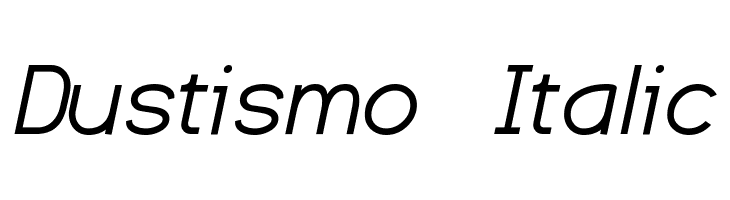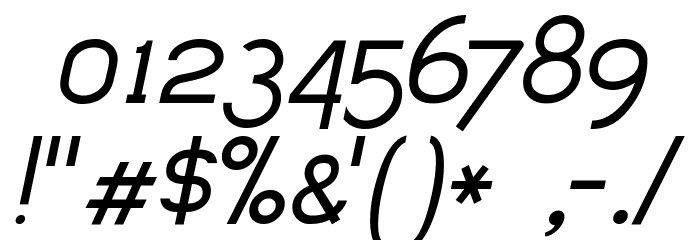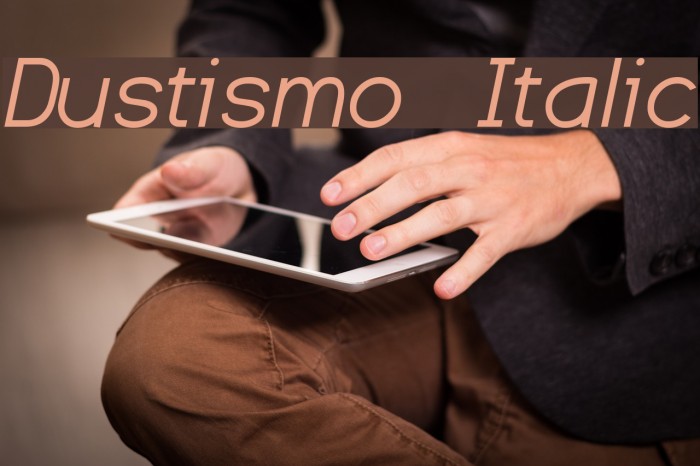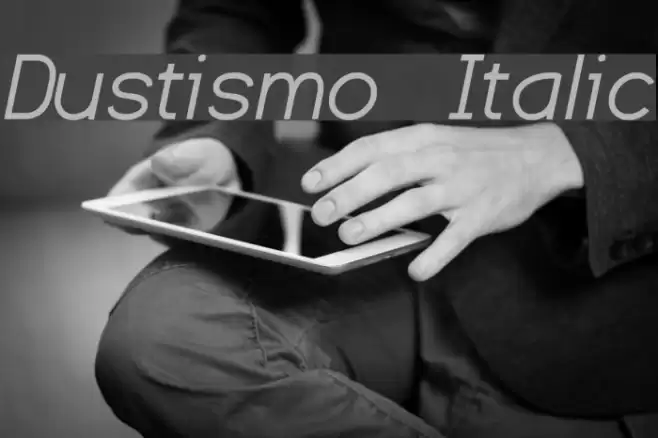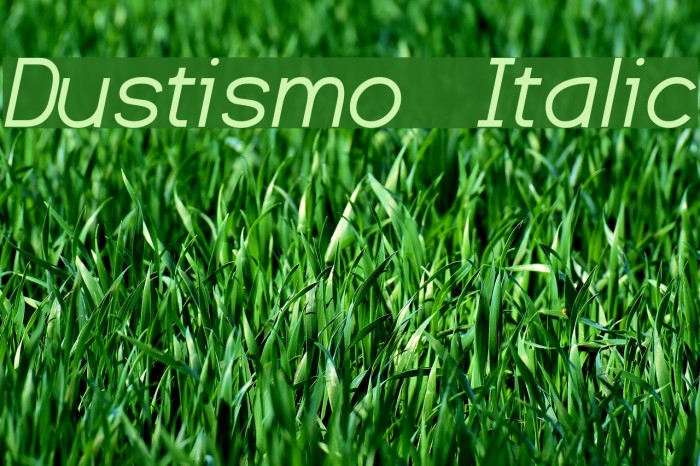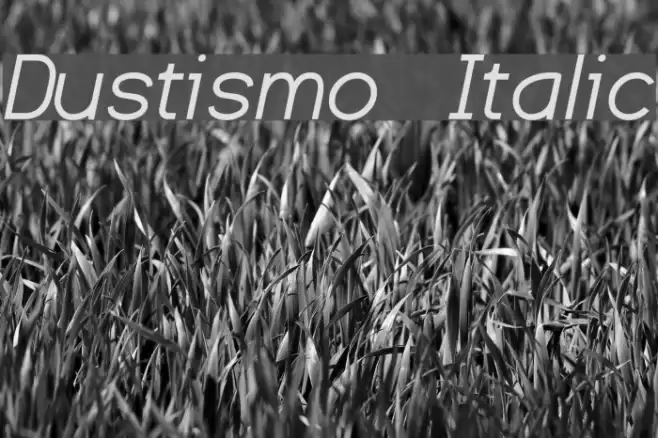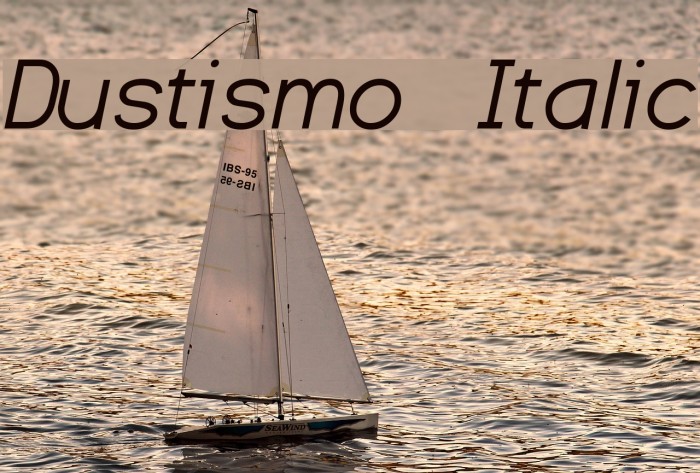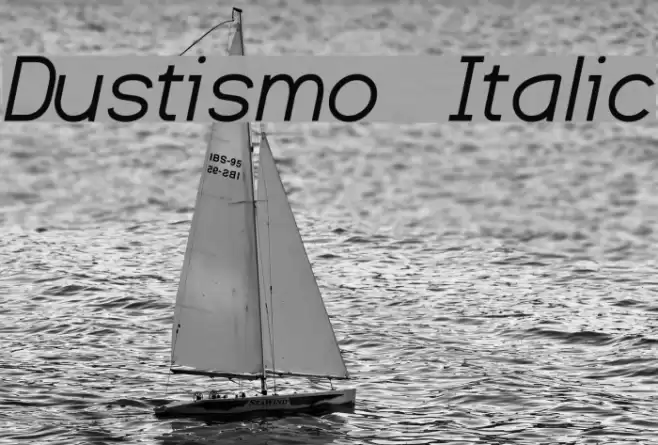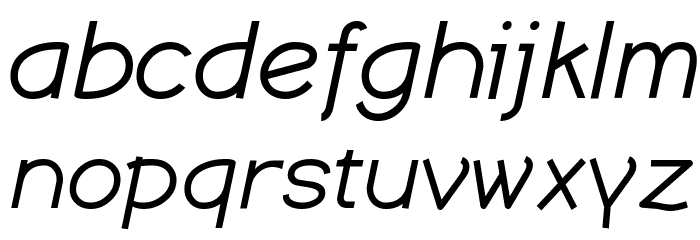
Dustismo Italic Font
Dustismo Italic Description
This font exhibits a modern and sleek design with a slight italic slant, giving it a dynamic and forward-moving appearance. The characters are clean and well-defined, with a consistent stroke width that maintains readability across different sizes. The uppercase letters are bold and authoritative, while the lowercase letters are more rounded and approachable. The numerals are clear and distinct, making them suitable for both text and numerical data. Special characters are well-integrated, maintaining the overall aesthetic of the font. This font is versatile, suitable for both digital and print media, and can be used effectively in a variety of design contexts.
| Use Case | Headlines, Body text, Logos |
| Proposed Projects | Ideal for branding, advertising, web design, and editorial layouts. |